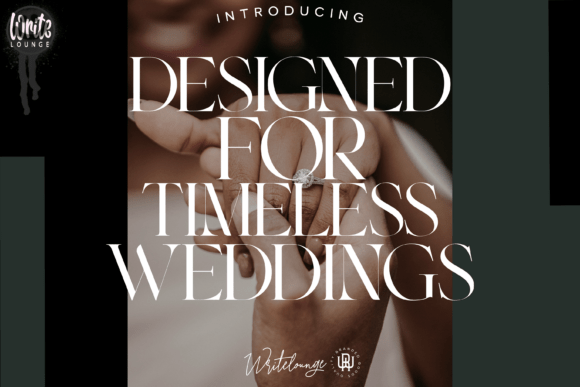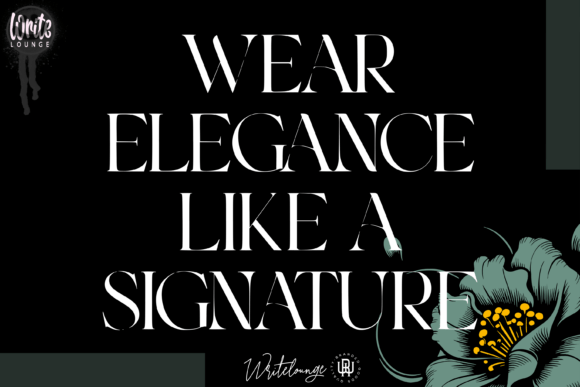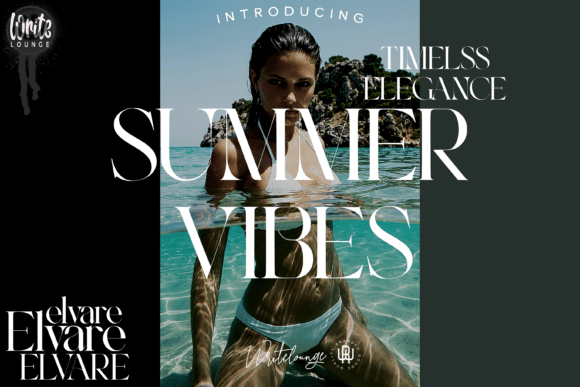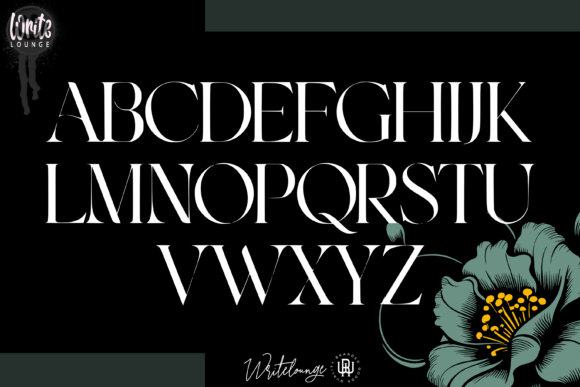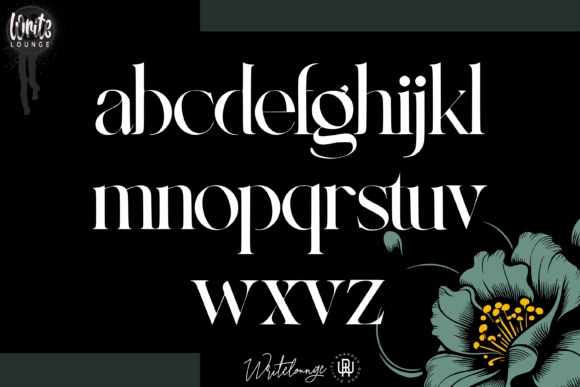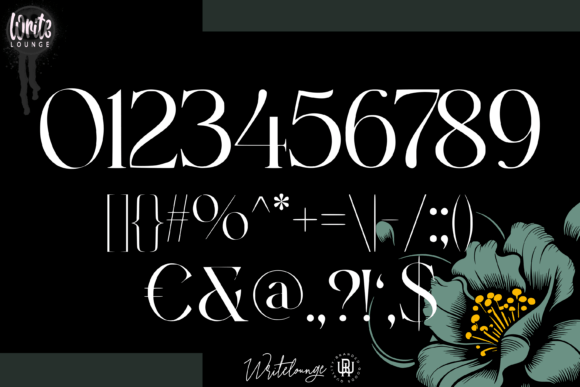
Introducing Elvare Font: The Ultimate Luxury Bridal Typeface
Are you a designer or crafter looking for the perfect font to elevate your wedding stationery, branding, and event design? Look no further than Elvare Font, a stunning luxury bridal typeface that exudes elegance and sophistication. In this article, we’ll dive into the features and benefits of Elvare, and explore how it can help you create premium, feminine, and timeless visuals for your clients or personal projects.
What is Elvare Font?
Elvare Wedding Serif Font is a high-end serif typeface specifically designed for elegant wedding invitations, sophisticated branding, and timeless event design. This beautiful font features refined contrast, delicate curves, and graceful letterforms that instantly elevate any design. Whether you’re creating wedding stationery, save the date cards, or bridal logos, Elvare is the perfect choice for designers who want to make a lasting impression.
Key Features of Elvare Font
- Refined Contrast: Elvare’s subtle contrast adds depth and visual interest to your designs, making them stand out from the crowd.
- Delicate Curves: The font’s delicate curves and rounded edges create a soft, feminine look that’s perfect for wedding designs.
- Graceful Letterforms: Elvare’s elegant letterforms are designed to impress, with beautiful swashes and terminals that add a touch of luxury to any design.
Perfect for Wedding and Event Design
Elvare Font is specifically designed for wedding and event design, making it the perfect choice for:
- Wedding Invitations: Create stunning wedding invitations that set the tone for the big day.
- Save the Date Templates: Design beautiful save the date cards that will leave a lasting impression on your clients or loved ones.
- Bridal Branding: Elevate your bridal branding with Elvare’s elegant and sophisticated font.
- Wedding Logo Design: Create a stunning wedding logo that incorporates Elvare’s luxurious font.
- Luxury Event Stationery: Use Elvare to create high-end event stationery that will impress your clients or guests.
- Canva Wedding Templates: Elvare is perfect for Canva wedding templates, allowing you to create professional-looking designs with ease.
- Elegant Website Headers: Add a touch of luxury to your website headers with Elvare’s elegant font.
- Fine Art Wedding Photography Branding: Use Elvare to create stunning branding for fine art wedding photography.
Why Choose Elvare Font?
So why choose Elvare Font for your wedding and event design needs? Here are just a few reasons:
- Modern Sophistication: Elvare combines modern sophistication with classic romance, making it the perfect choice for designers who want to create premium, feminine, and timeless visuals.
- Luxurious Feel: Elvare’s elegant font is designed to feel luxurious, refined, and unforgettable, making it perfect for high-end wedding and event design.
- Easy to Use: Elvare is easy to use and pairs perfectly with a variety of design software, including Canva.
If you’re looking for a luxury bridal typeface that will elevate your wedding stationery, branding, and event design, look no further than Elvare Font. With its refined contrast, delicate curves, and graceful letterforms, Elvare is the perfect choice for designers who want to create premium, feminine, and timeless visuals. Whether you’re creating wedding invitations, save the date cards, or bridal logos, Elvare is the ultimate luxury font that will make your designs stand out from the crowd.